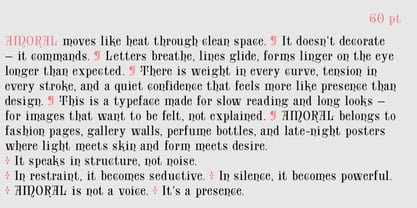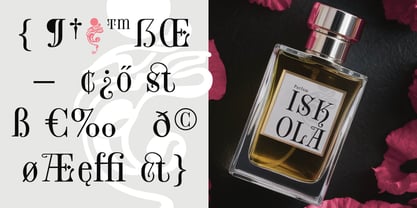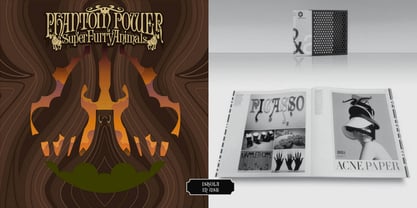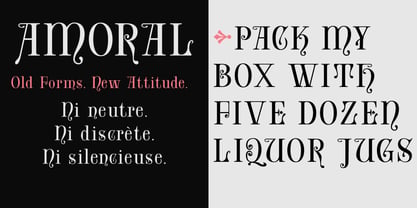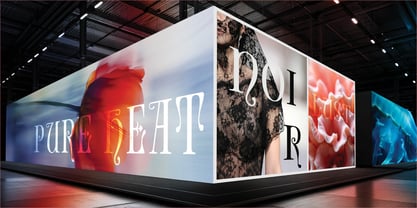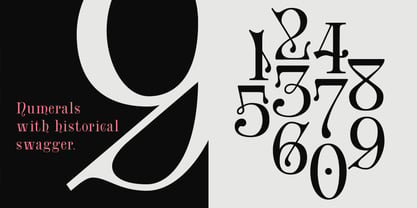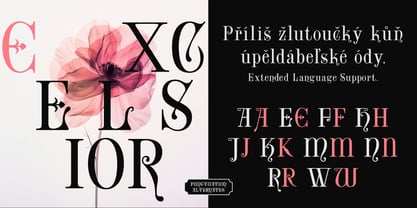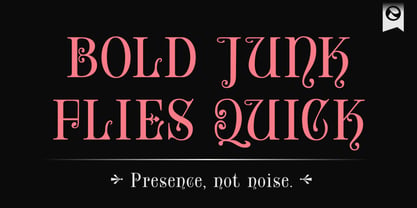
Amoral
La familia tipográfica Amoral fue diseñada por Amondó Szegi y publicada por Monovo. Amoral contiene 1 estilos. Más información sobre esta familia
Amoral is the second recut. Cleaner letterforms, better rhythm, reconsidered balance — but the expressive numerals and the quiet strangeness of the original are still here. That's the whole point. For headlines, posters, book jackets, album covers, and anything that should feel like it arrived from somewhere. This typeface has been traveling for over 130 years. It started as Armoral — a display face issued by Ciniatti Type Foundry in 1888. By the turn of the century, it had crossed the Atlantic and entered the catalogue of an early 20th-century Hungarian printing house, listed simply as Excelsior. It was from this Hungarian source that the designer recut it, named it Iskola in 2002, and released it through T-26 — sending it back to America without knowing where it had originally come from. The origin only surfaced later, when the 1888 Cincinnati specimen turned up.